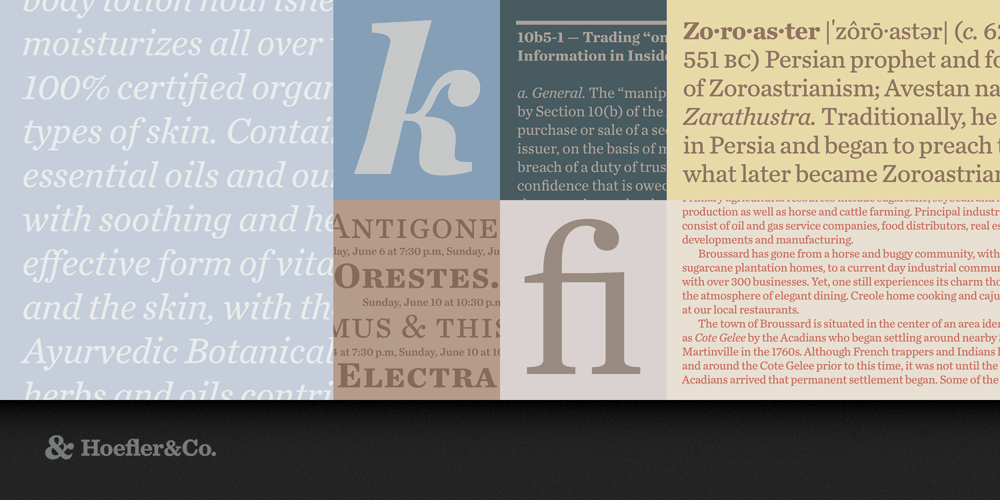
Chronicle Text Font Family was designed by Jonathan Hoefler and published by Hoefler & Co.. Chronicle Text contains 48 styles and family package options. A vigorous hybrid of time-honored forms and contemporary design strategies, Chronicle Display (a suite of headline faces) and Chronicle Text (a suite of text faces) bring strength and utility to the classic serif.The Chronicle Text typeface was designed by Jonathan Hoefler in 2002, as a text-size counterpart to Chronicle Display. Chronicle is an update to the ‘scotch’ genre of typefaces, which emerged at the end of the eighteenth century, and remains one of typography’s most enduring and serviceable styles of letter. Chronicle Text was created for The Toronto Star, in whose pages the typeface first appeared in 2002. Designed by Jonathan Hoefler with contributions from Tobias Frere-Jones, Jesse Ragan; Sara Soskolne. Special thanks to Lucie Lacava.Advance copies of Chronicle Text were circulated under the working title Torstar Text.